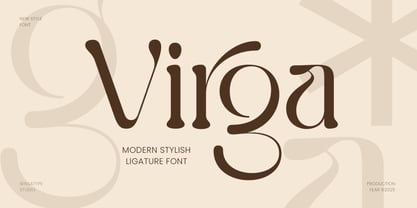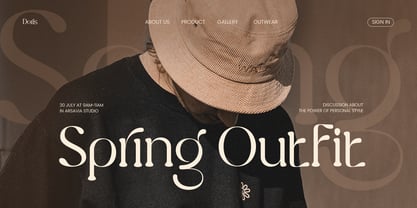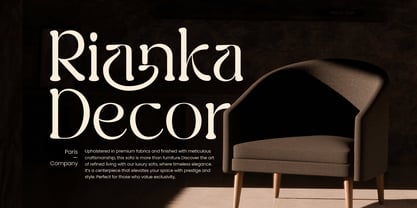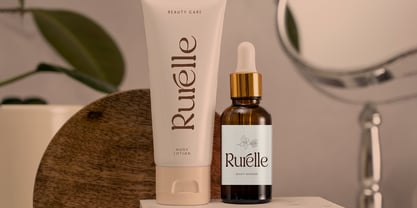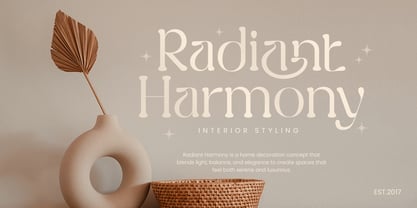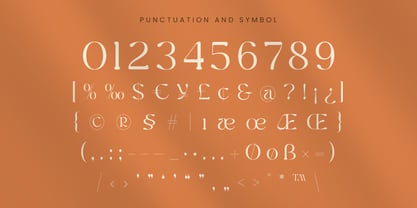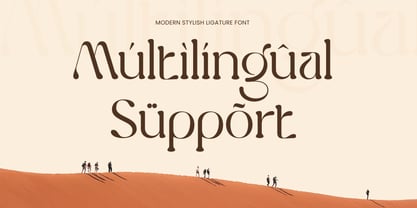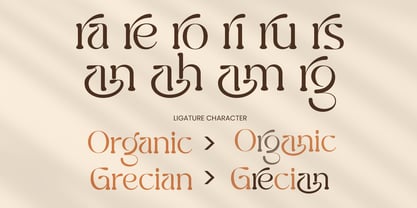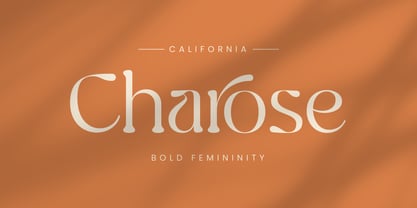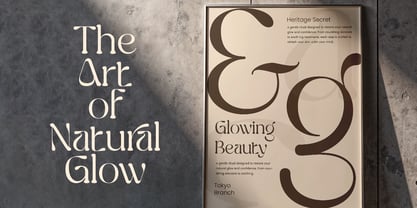
Virga
Virga is a modern stylish ligature font that blends timeless elegance with contemporary design. Each character is thoughtfully crafted with beautiful ligatures and refined curves, making it perfect for luxury branding, logos, fashion editorials, and creative typography projects.
Inspired by high-end design and modern aesthetics, Virga brings sophistication and individuality to every composition. The elegant letter connections and flowing forms create a harmonious visual rhythm that stands out across print and digital platforms.
Perfect for designers seeking a font that’s both unique and versatile, Virga works beautifully for magazine headlines, brand identities, wedding invitations, and upscale product packaging.
Virga – Modern Stylish Ligature Font Features
• Elegant serif font with custom ligatures and alternates
• Perfect for fashion, logos, editorial, and luxury branding
• Modern letterforms with graceful curves and visual balance
• Great readability for titles, invitations, and print materials
• Uppercase, lowercase, numerals, and punctuation included
• OpenType features for advanced typographic creativity
Express elegance with Virga – the ultimate modern ligature font for fashion branding, editorial layouts, and creative design.